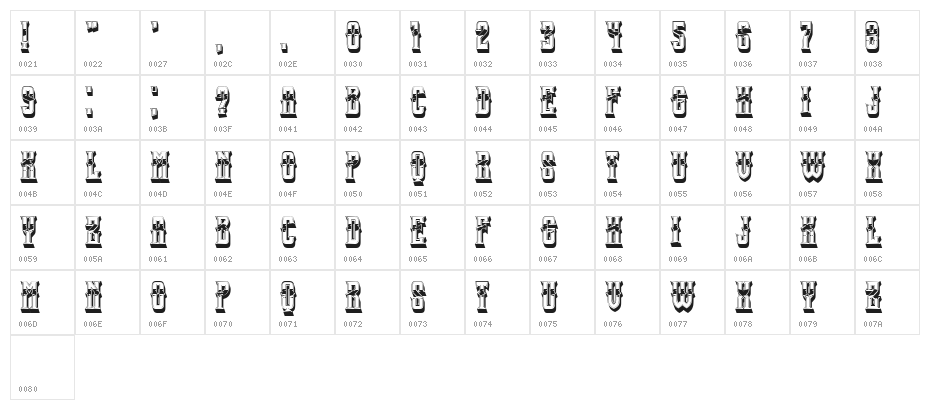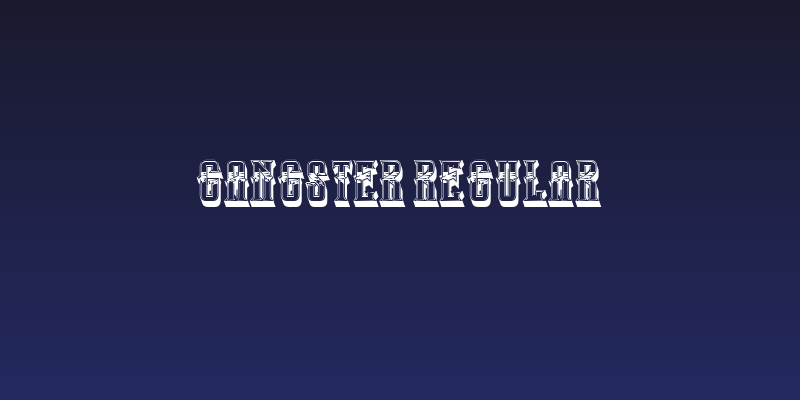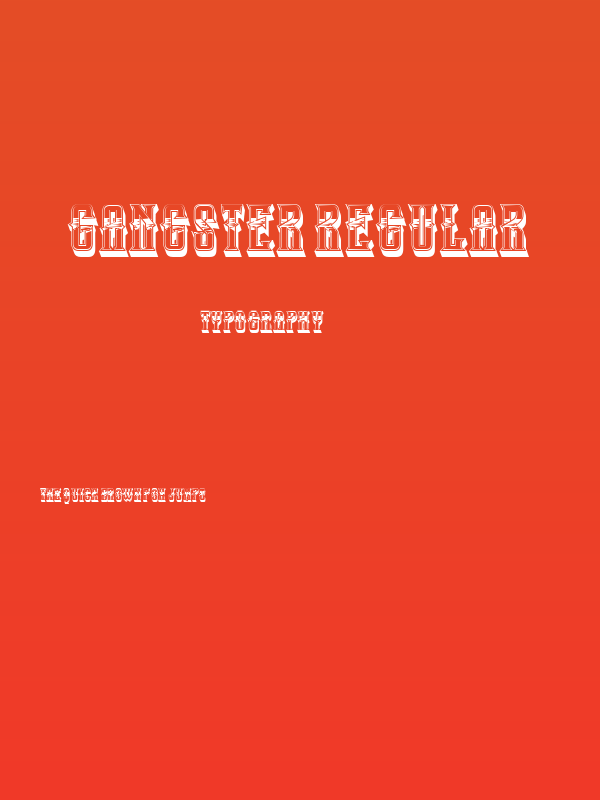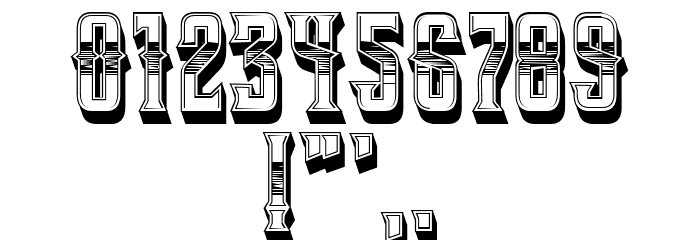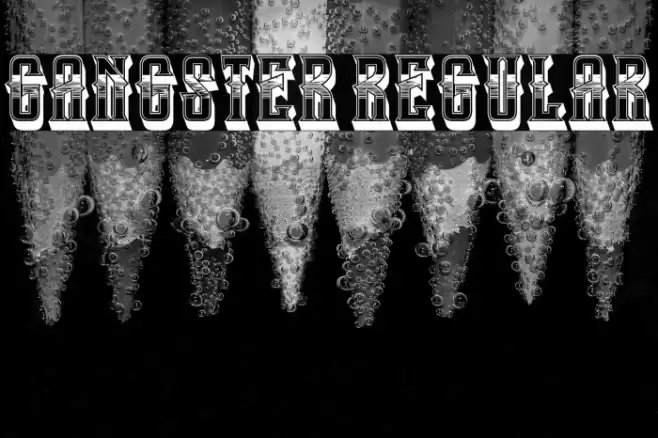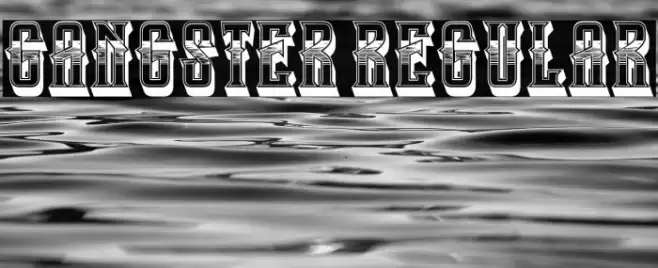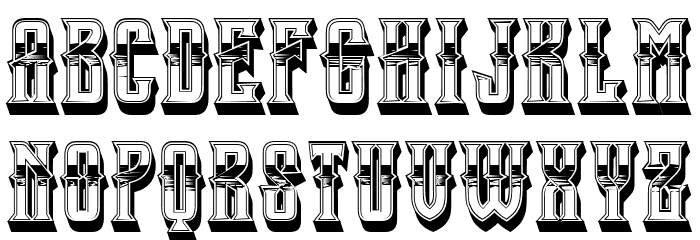
Gangster Regular Font
Gangster Regular Description
This font features a bold, decorative style with a strong 3D effect, reminiscent of vintage gangster themes. The characters are heavily stylized with intricate detailing and shadowing that gives them a striking, embossed appearance. The uppercase and lowercase letters maintain a consistent design, with sharp edges and a robust presence. The numerals and special characters follow the same aesthetic, ensuring a cohesive look across all text. This font's unique style makes it stand out, ideal for projects that require a dramatic and eye-catching typeface.
| Overall Style | Vintage |
| Use Case | Headlines, Logos |
| Proposed Projects | Ideal for posters, logos, branding, and any design requiring a bold, vintage aesthetic. |